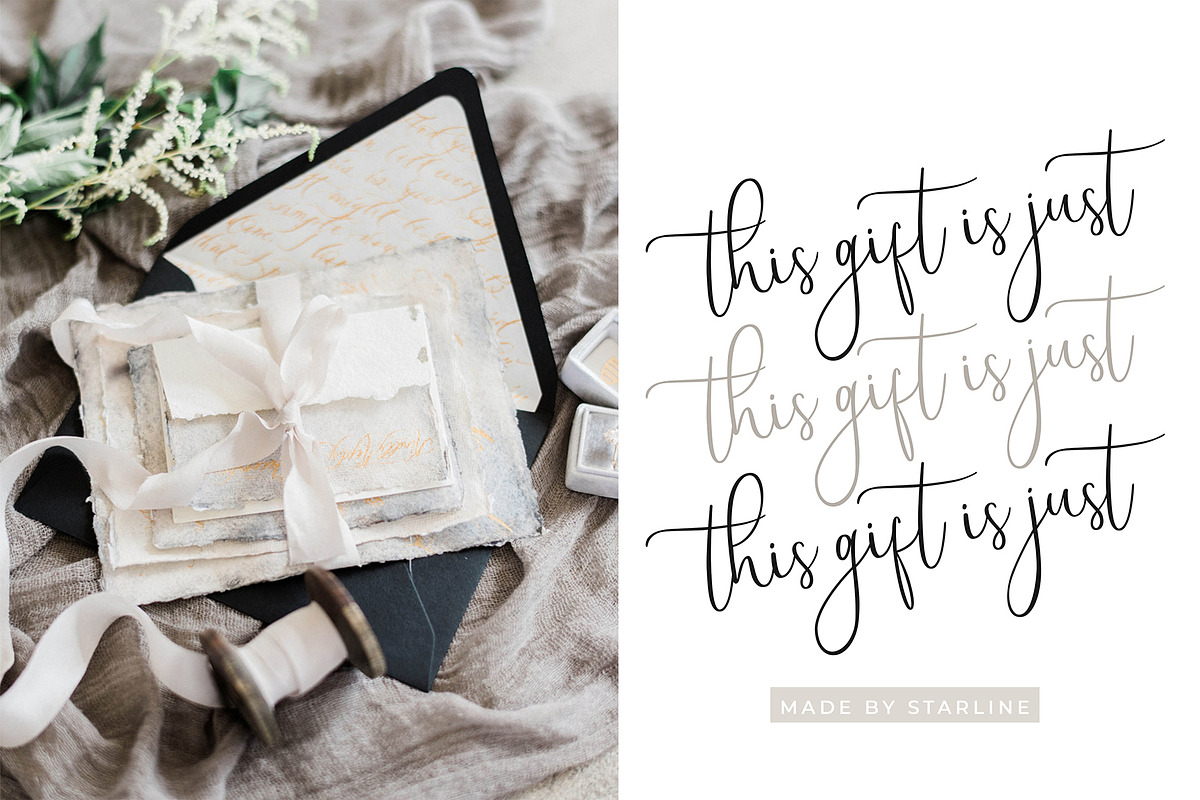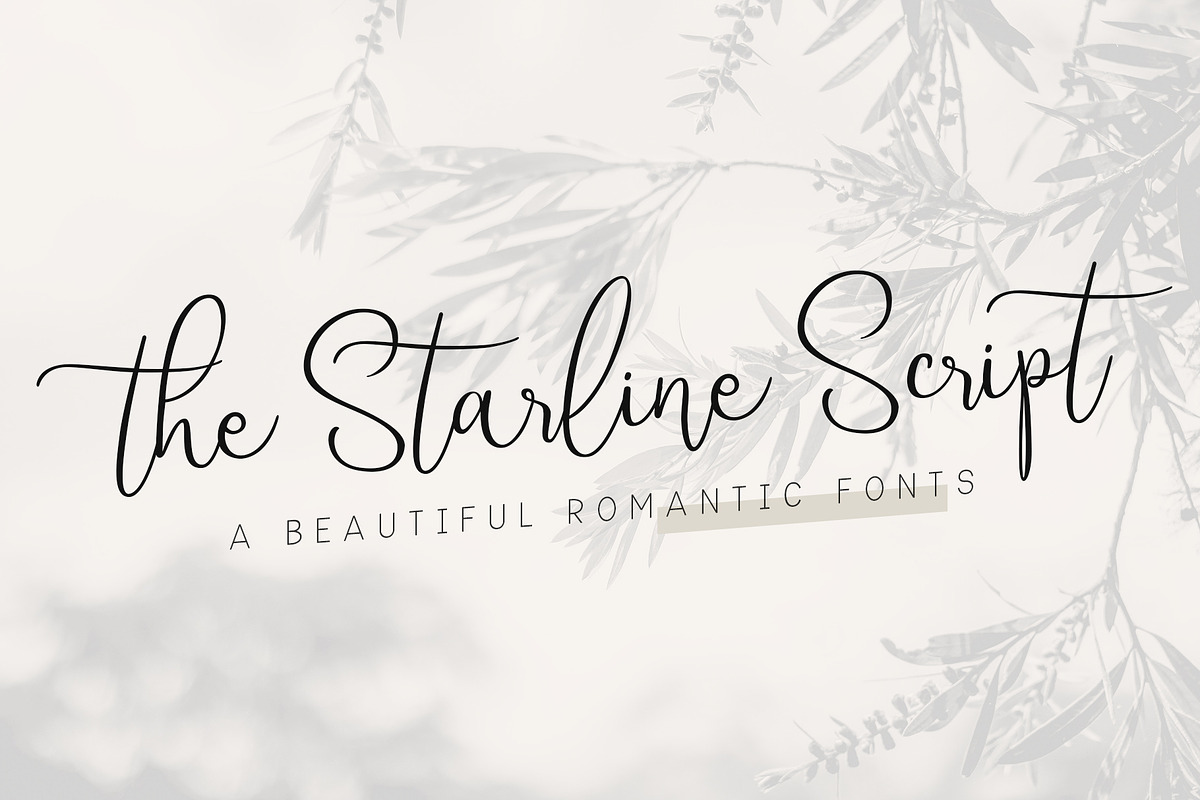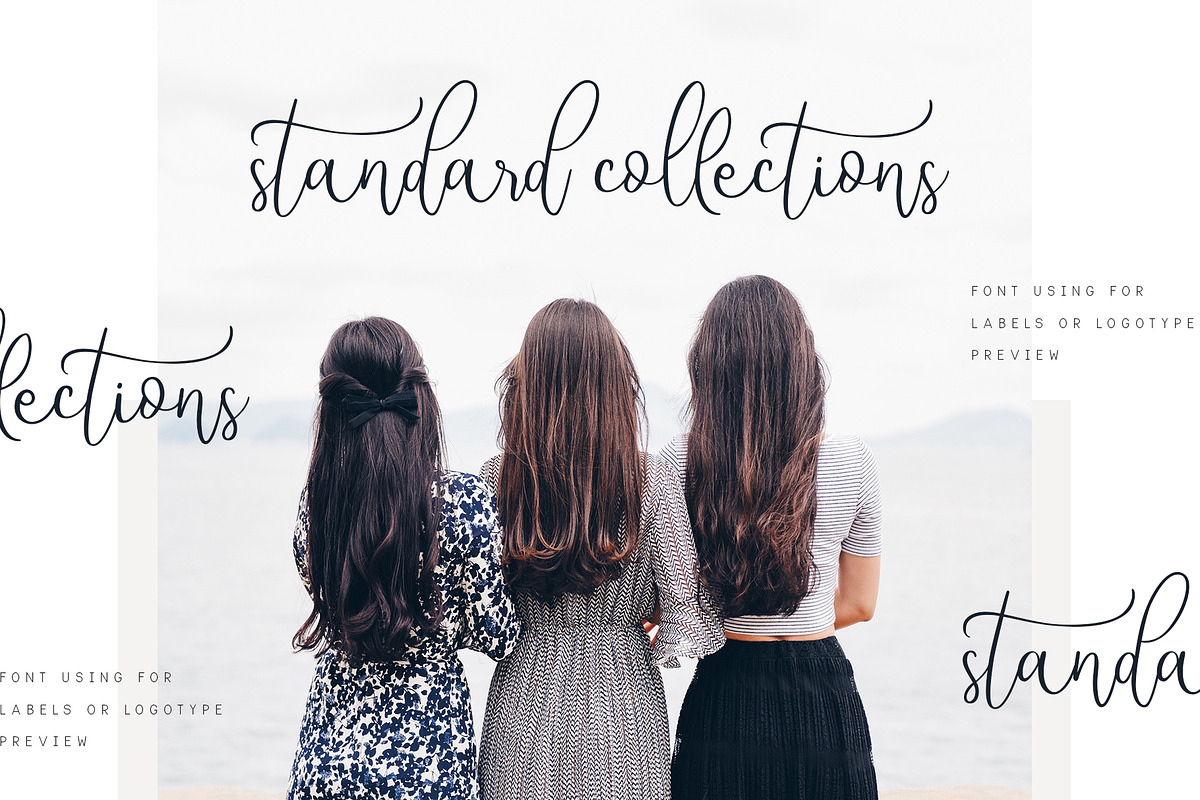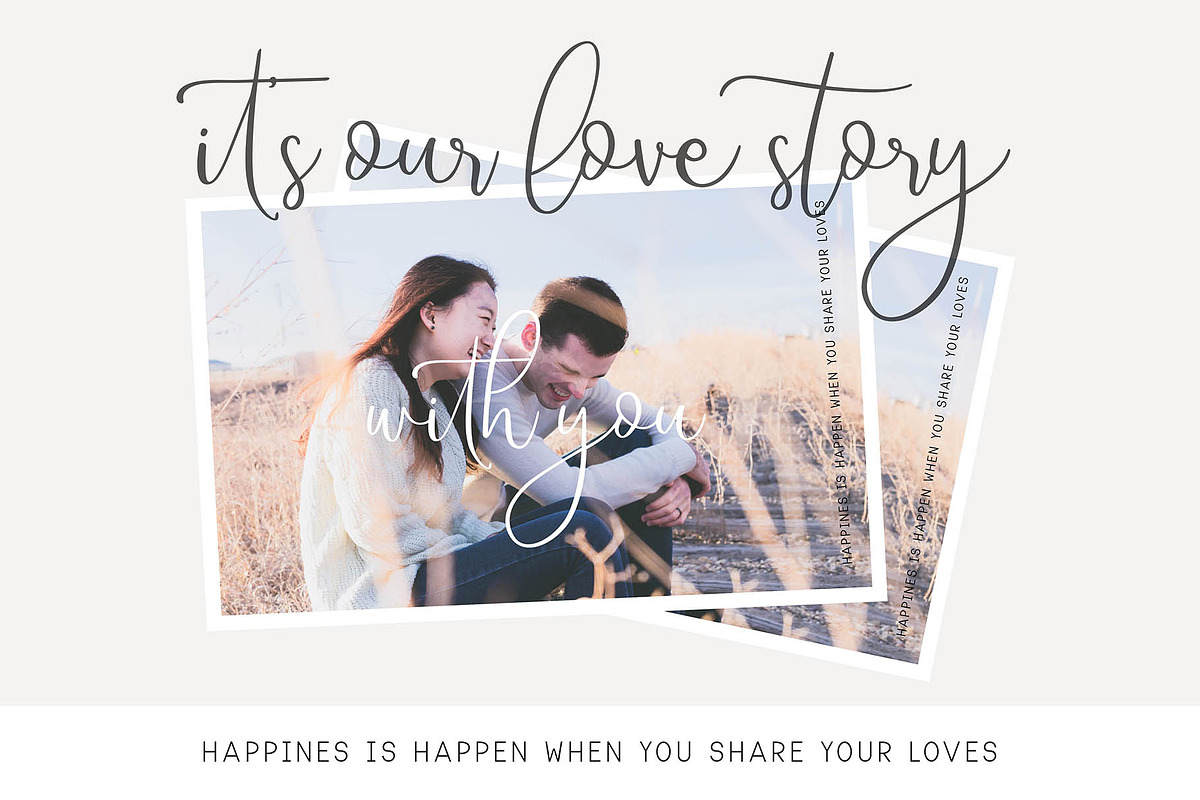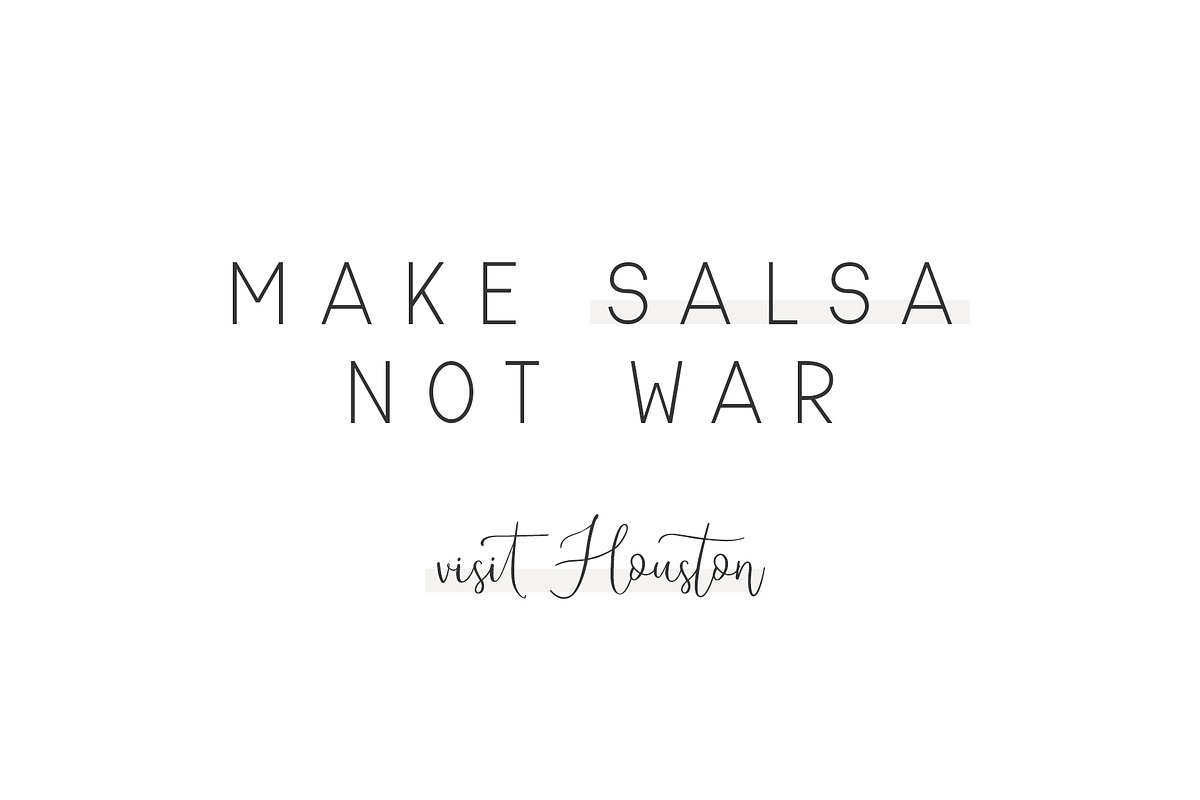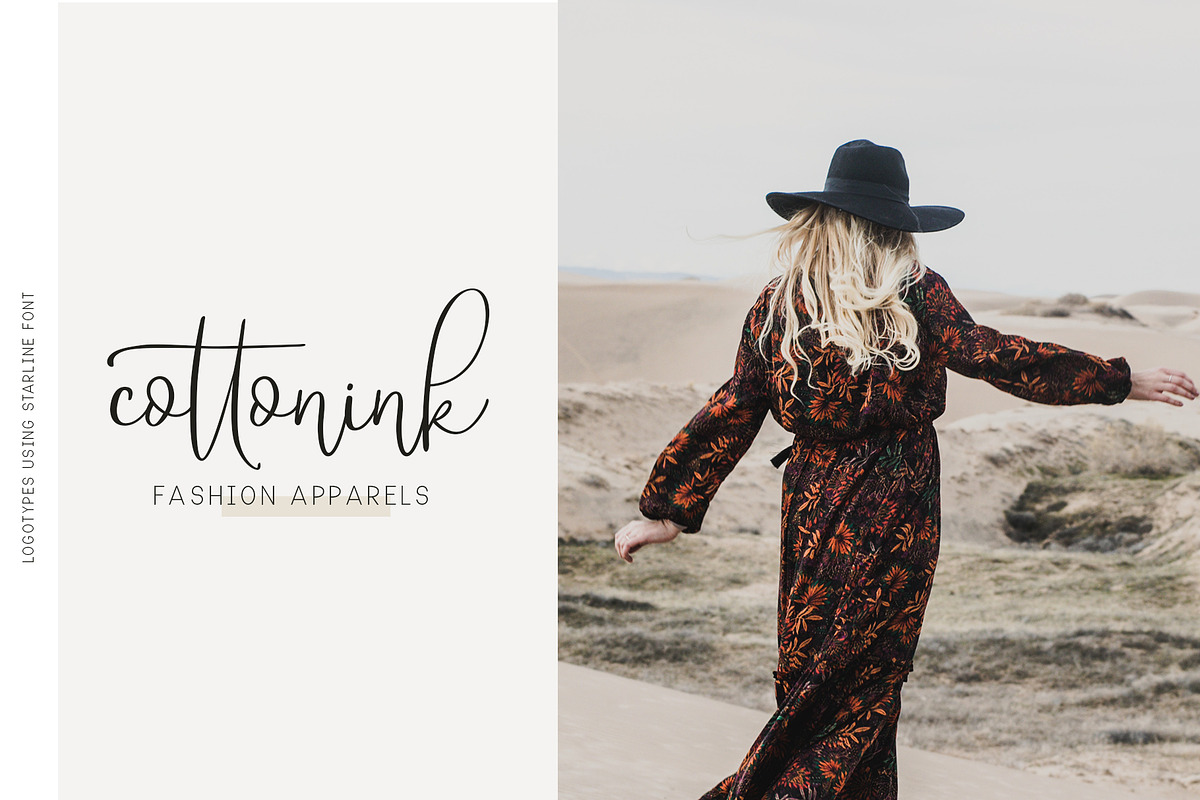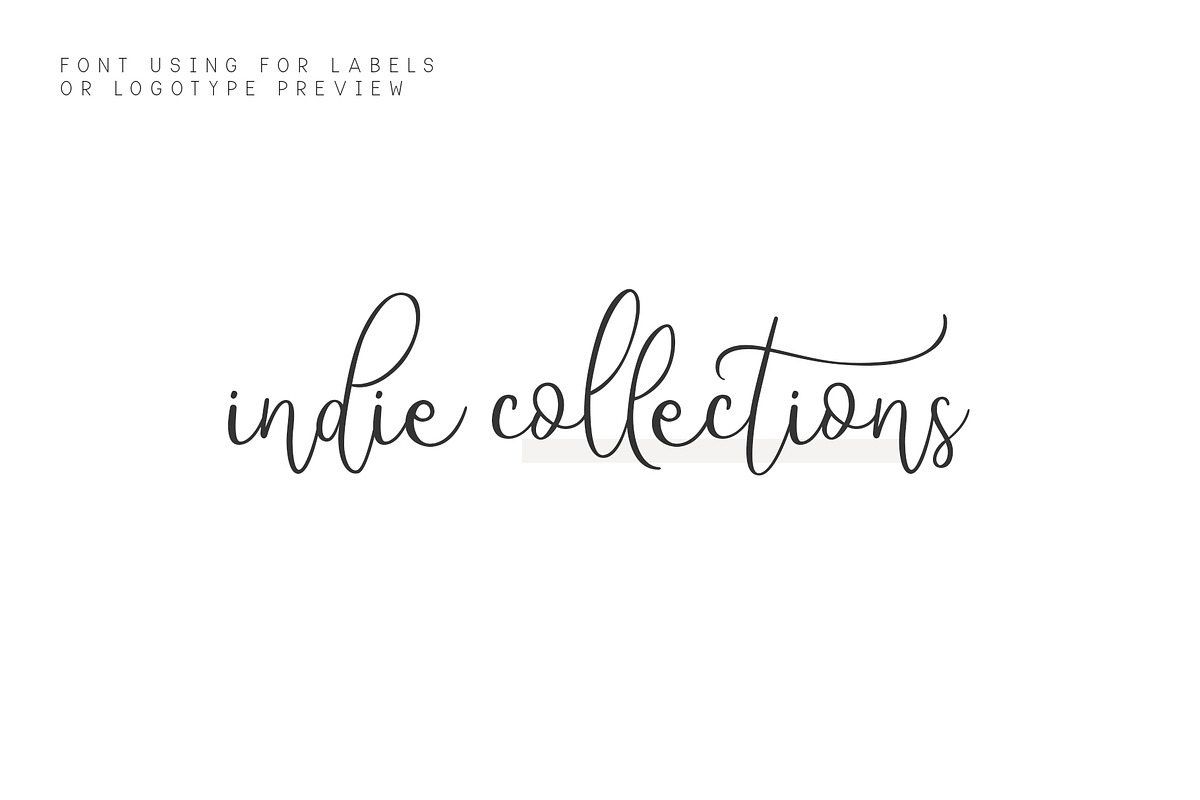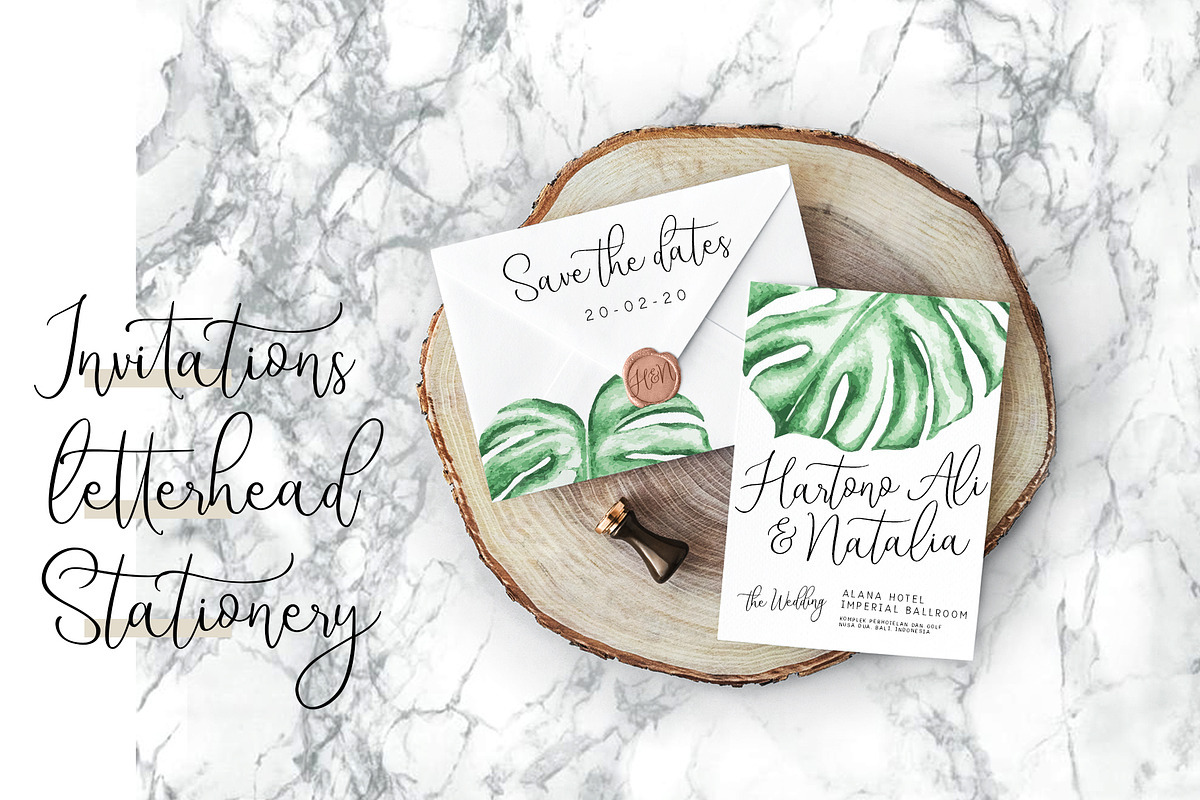
Starline | Beautiful Script Fonts
Starline is a beautiful font duo combining Modern Calligraphy Script and Sans Serif Caps Fonts into one wonderful package. With this combinations, you can create gorgeous design instantly such as Logotype, invitations, calligraphy design, apparel design, fashion labels, and many more.
Starline Script - a beautiful hand-lettering script font with elegant letters it allows you to make beautiful hand-lettering typography easily. This font comes with upper and lowercase characters, a large set of punctuation glyphs, numerals, and supports international languages.
Starline Sans - a modern sans font with all caps glyphs it allows you to make great combinations to another script fonts, and also this will look perfect to make catchwords or quotes. This font comes with upper and lowercase characters, a large set of punctuation glyphs, numerals, and supports international languages.